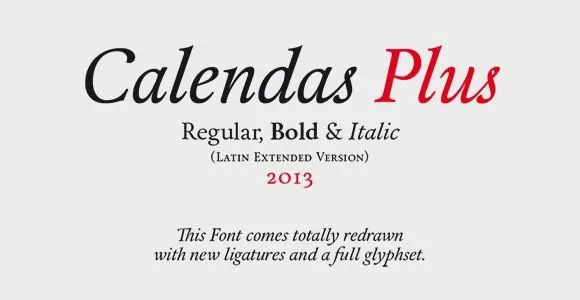
Introducing you to the absolutely beautiful free calendas plus typeface font. Freebies Bug has created this amazing and beautiful free typeface. Showcase your designs like a graphic design pro by adding a new touch with this fancy font.